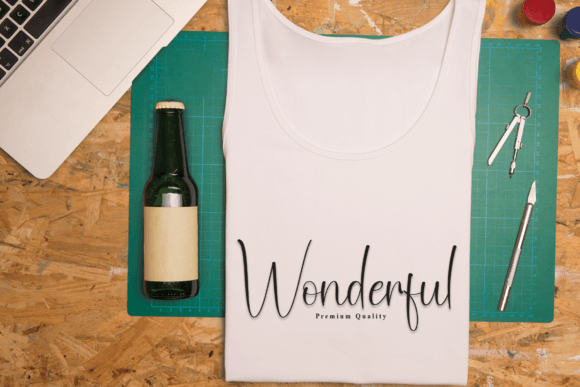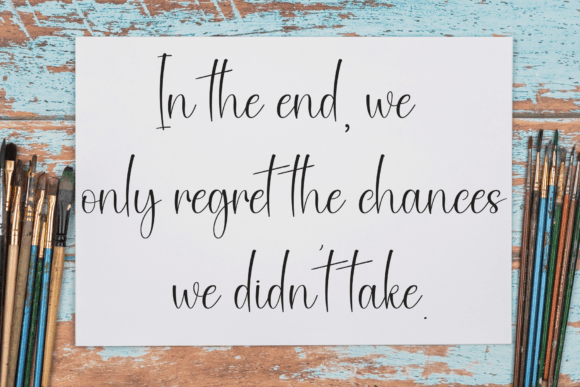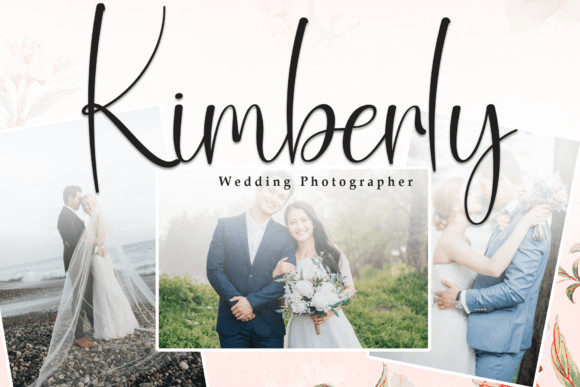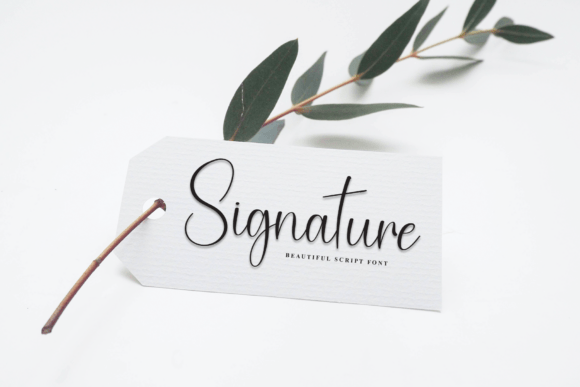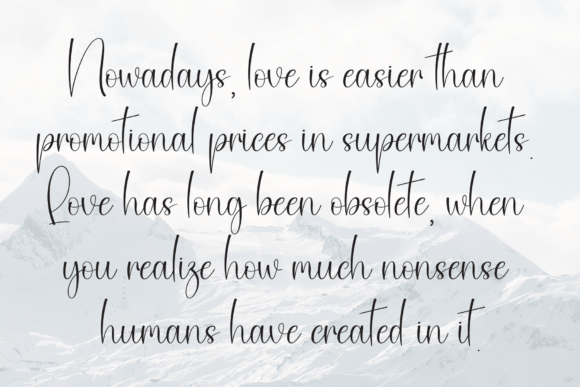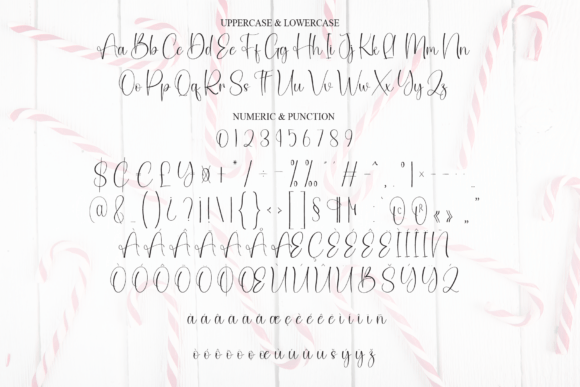
Candy Christmas Font: The Sweetest Addition to Your Holiday Designs
Are you looking for a font that adds a touch of elegance and whimsy to your holiday designs? Look no further than Candy Christmas, a stylish script font that’s perfect for creating beautiful invitations, logos, and more. With its smooth, flowing lines and personal feel, Candy Christmas is the ideal choice for designers and crafters who want to add a little extra magic to their work.
What is Candy Christmas Font?
Candy Christmas is a script font that mimics elegant handwriting. Its smooth, cursive lines give it a sophisticated and refined look that’s perfect for a variety of design applications. Whether you’re creating holiday invitations, designing a logo for a seasonal business, or simply want to add a personal touch to your digital or print designs, Candy Christmas is a versatile and beautiful choice.
Key Features of Candy Christmas Font
- Smooth and Flowing Lines: The font features smooth, connected letters that give it a fluid, handwriting-like feel.
- Elegant and Refined: Despite its playful feel, Candy Christmas has an undeniably elegant and sophisticated look that’s perfect for more formal designs.
- Perfect for Invitations and Logos: The font’s personal and creative feel makes it ideal for invitations, logos, and other designs where you want to make a good impression.
- Easy to Read: While the font is decorative, it’s still easy to read, making it practical for use in a variety of contexts.
How to Use Candy Christmas Font in Your Designs
Candy Christmas is incredibly versatile and can be used in a wide range of design projects. Here are a few ideas to get you started:
- Holiday Invitations: Use Candy Christmas to create beautiful, personalized holiday invitations that will make your guests feel special.
- Logos and Branding: Add a touch of elegance and whimsy to your logo or branding with Candy Christmas.
- Digital and Print Designs: Whether you’re creating social media graphics, blog posts, or print materials like brochures or flyers, Candy Christmas can add a personal touch.
- Crafting and Scrapbooking: If you’re a crafter or scrapbooker, Candy Christmas can be used to add beautiful lettering and titles to your projects.
Tips for Getting the Most Out of Candy Christmas Font
To make the most of Candy Christmas, here are a few tips:
- Experiment with Sizes and Colors: Don’t be afraid to play around with different sizes and colors to find the perfect look for your design.
- Combine with Other Fonts: Consider pairing Candy Christmas with a simpler font for contrast and visual interest.
- Use it Sparingly: While Candy Christmas is beautiful, it can be overwhelming if overused. Use it sparingly to add impact and emphasis.
Candy Christmas is a beautiful, stylish script font that’s perfect for adding a touch of elegance and whimsy to your holiday designs. With its smooth, flowing lines and personal feel, it’s ideal for invitations, logos, and more. Whether you’re a designer or crafter, Candy Christmas is a versatile and beautiful choice that’s sure to make your designs stand out.